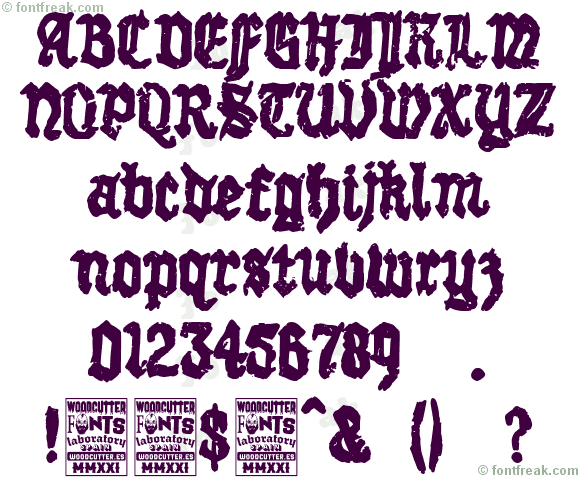
Gothic Mother
About Gothic Mother
Gothic Mother is a striking display font designed by woodcutter Manero, categorized under decorative typefaces. This font showcases a unique blend of gothic aesthetics and contemporary flair, making it a captivating choice for various creative projects. The stroke weight varies throughout the characters, creating a dramatic contrast that enhances its visual impact. The spacing is tight, allowing for a cohesive appearance, while intricate decorative elements, such as sharp serifs and unique letterforms, add personality and character to the design.
This font is particularly well-suited for a range of applications, including wedding invitations that call for an elegant yet bold statement, movie posters that need an eye-catching title, and restaurant menus that aim to capture a vintage or rustic theme. Additionally, Gothic Mother can elevate branding materials for small businesses looking to convey a distinct identity, as well as social media graphics for content creators who want to stand out in a crowded digital space.
Targeted primarily at graphic designers, small business owners, and content creators, Gothic Mother offers versatility and a unique style that can elevate any project. Its freeware license makes it accessible for both personal and commercial use, allowing creatives to experiment without financial constraints.
What sets the Gothic Mother font apart is its ability to evoke a sense of nostalgia while remaining fresh and modern. The careful craftsmanship by woodcutter Manero ensures that each character resonates with viewers, making it a memorable choice for anyone looking to make a statement. With the Gothic Mother font free download, you can bring this stunning typeface into your design toolkit and transform your projects with its distinctive charm.